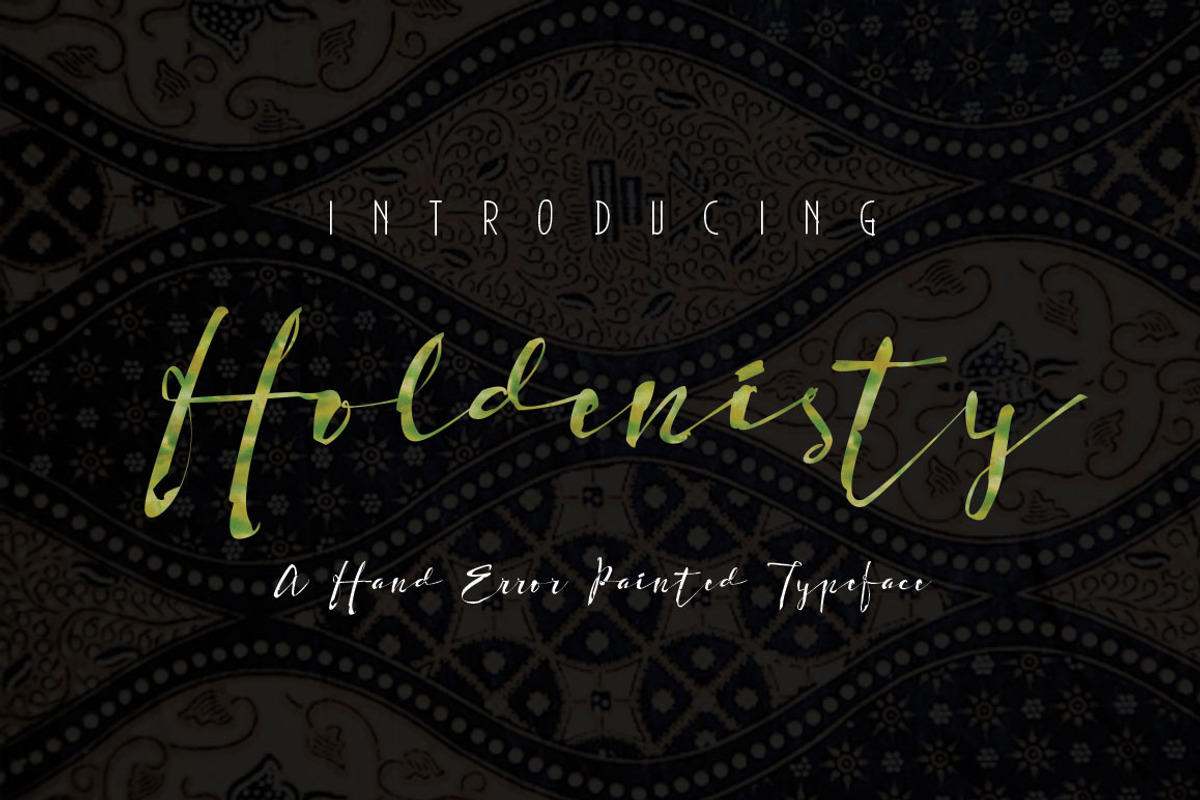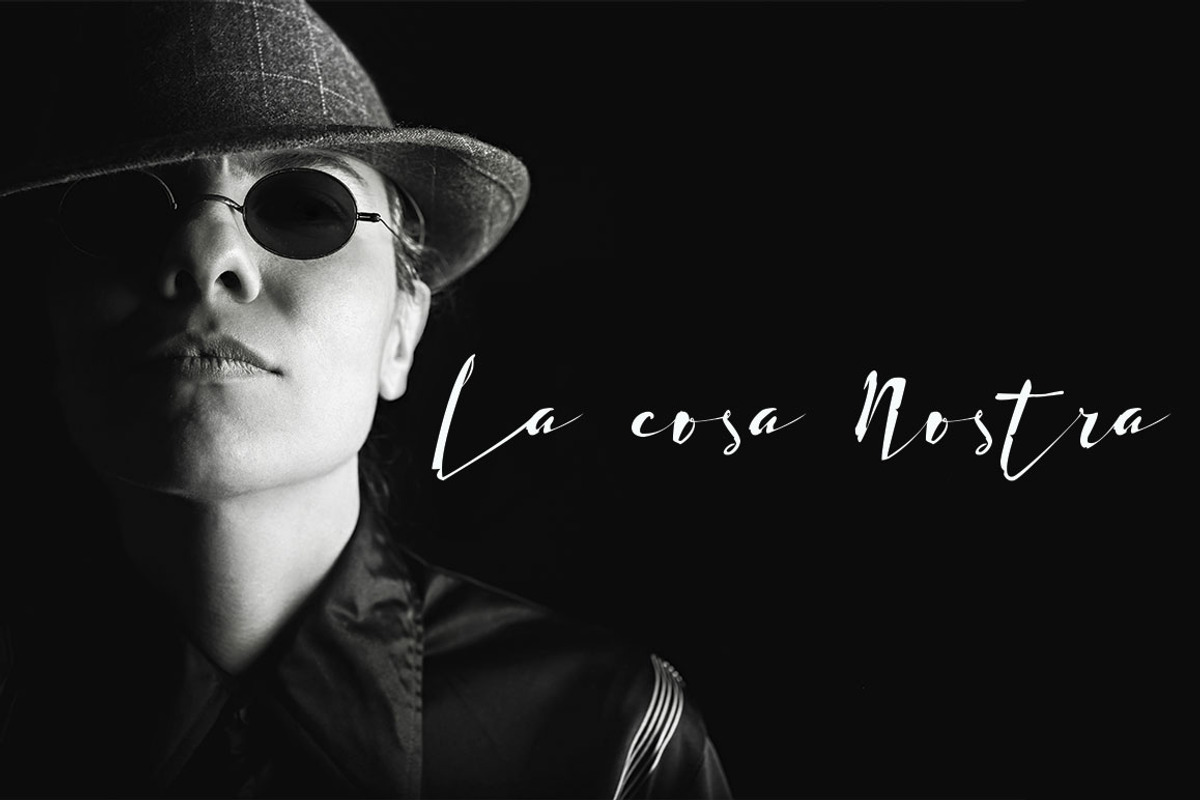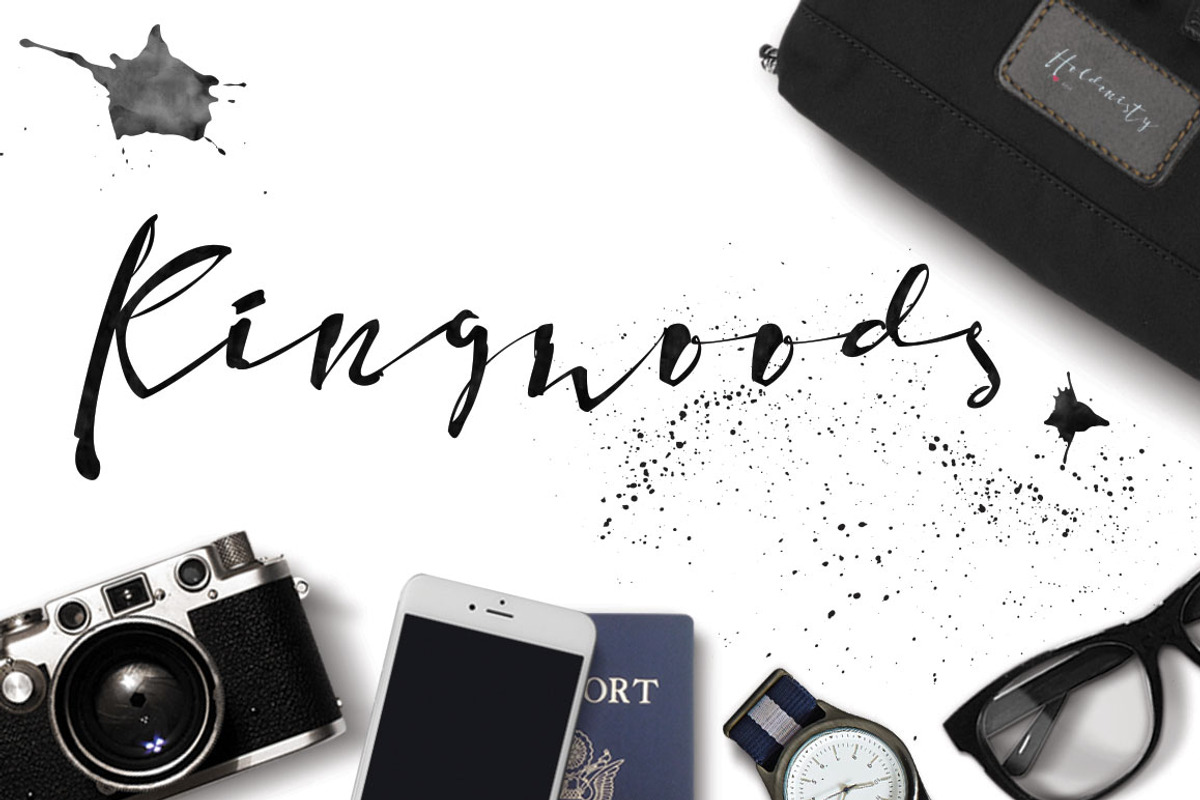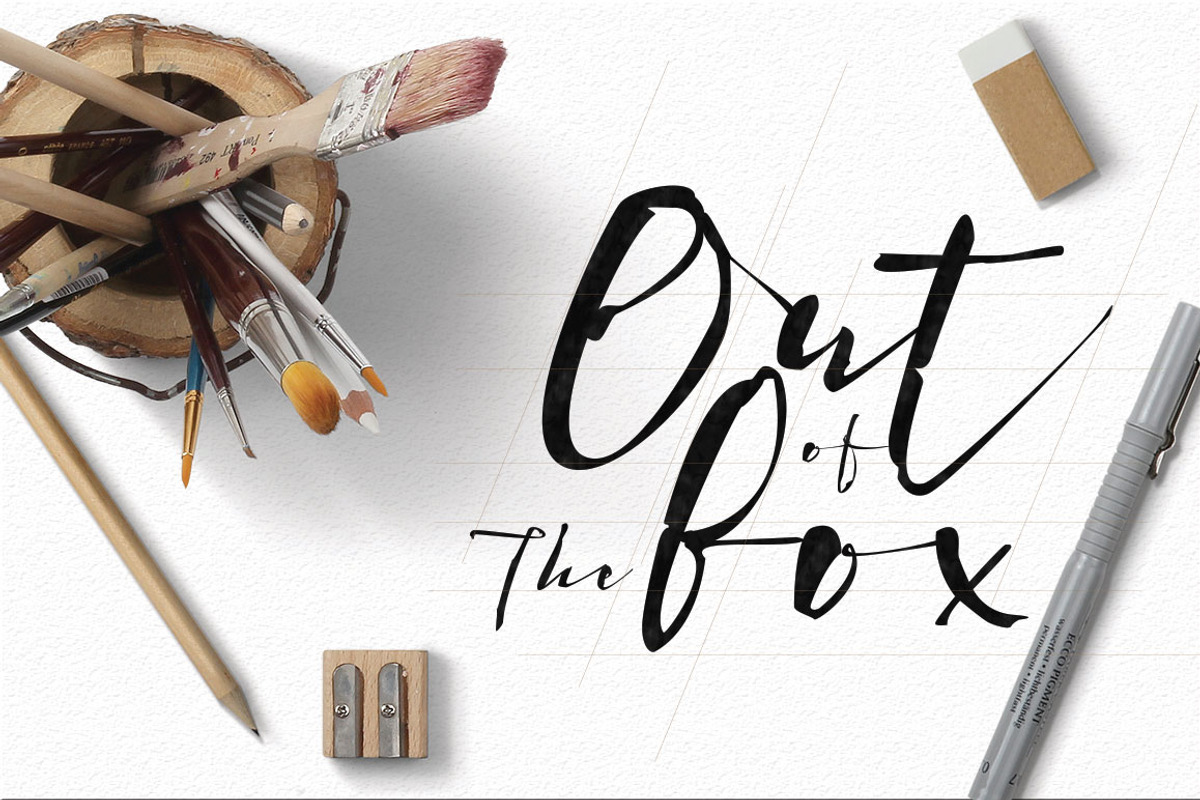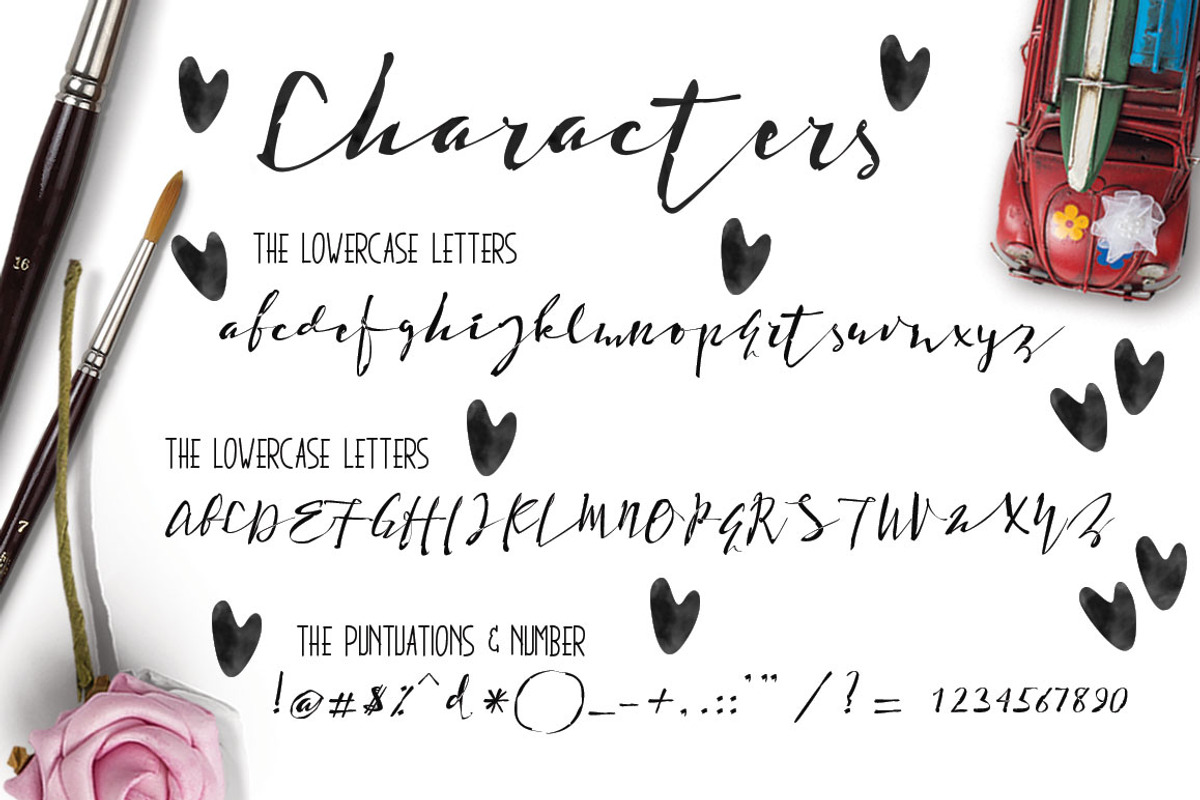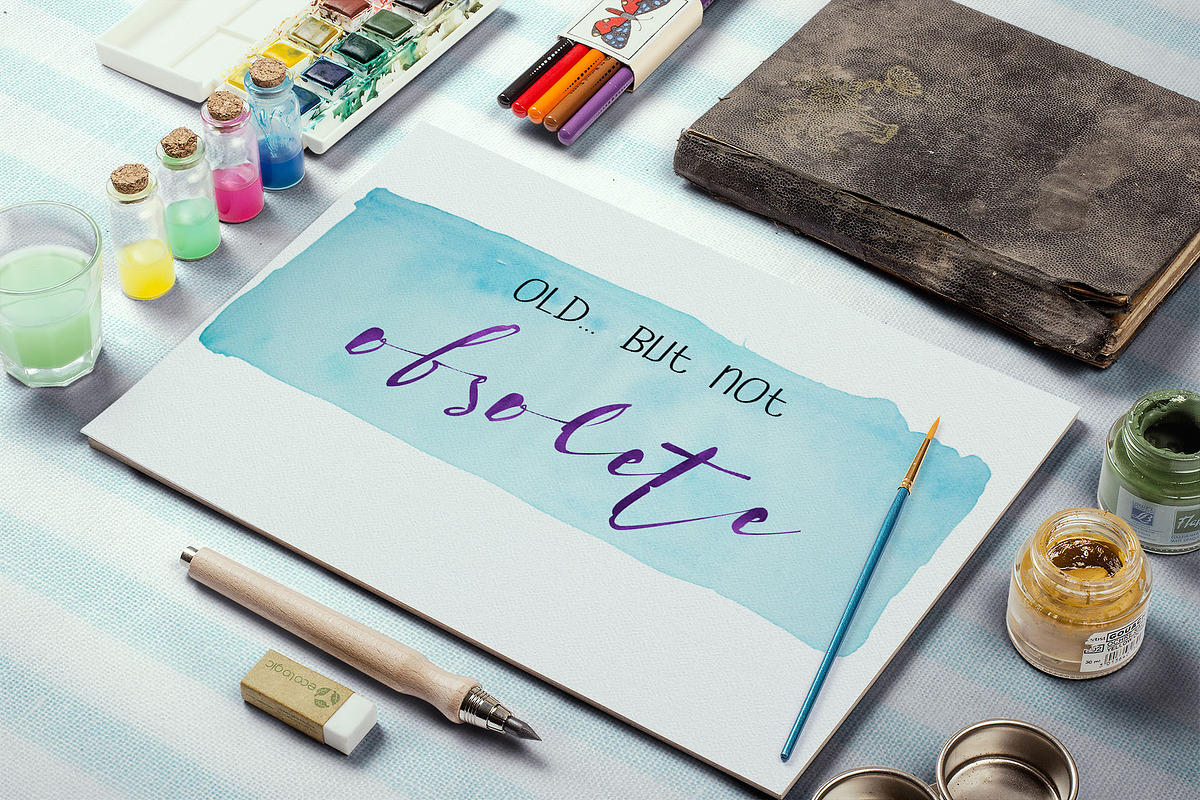
Holdenisty Typeface
Holdenisty Typeface by beeART is a font selected for branding, posters, packaging, typography.
Why Holdenisty Typeface is worth a look
Holdenisty Typeface by beeART fits naturally into Branding, posters, packaging, typography.